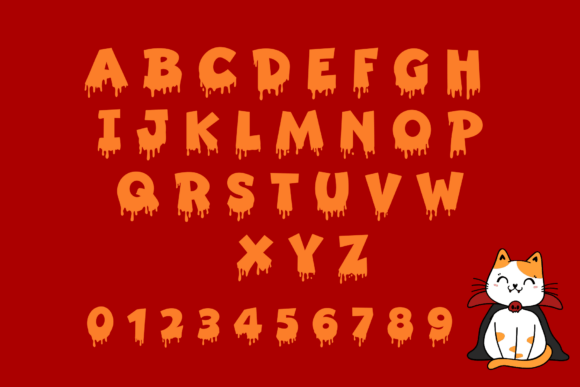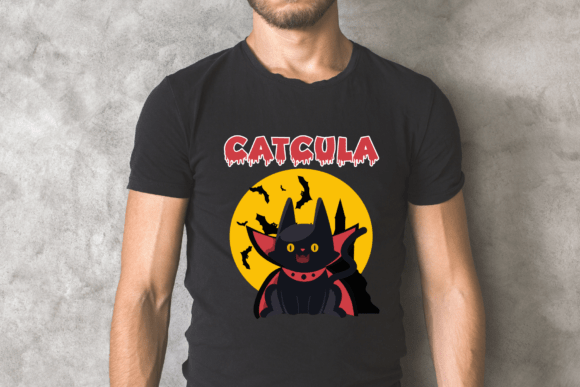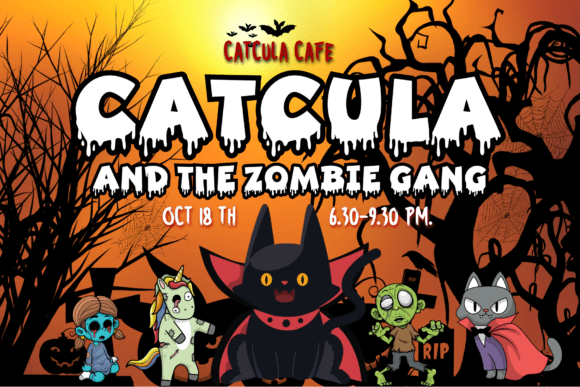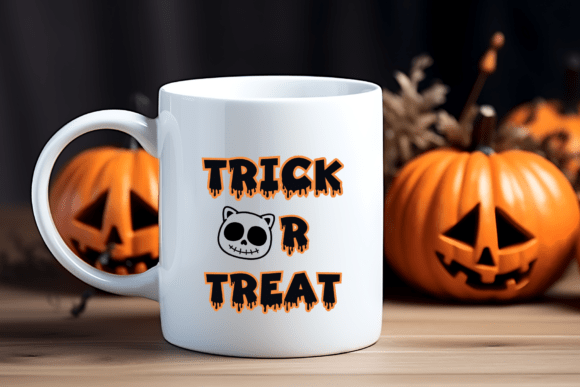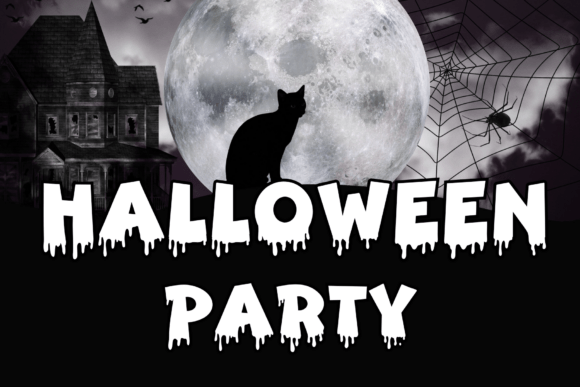
Unleash the Spooky Charm with Catcula Font: Elevate Your Halloween Designs
Are you ready to add a dash of whimsy and festive flair to your designs? Look no further than the enchanting Catcula font, a uniquely-shaped decor font that embodies the spirit of Halloween and October-themed celebrations. In this article, we’ll dive into the world of Catcula, exploring its features, uses, and the magic it brings to your creative projects.
The Birth of Catcula: A Font Like No Other
Catcula is a carefully crafted font, designed specifically to capture the essence of Halloween and the spooky-ooky charm of the season. Its whimsical shape and playful allure make it an ideal choice for designers, crafters, and artists looking to infuse their work with a touch of mystery and fun. Whether you’re creating invitations, decorations, or digital content, Catcula is the perfect gateway to unlocking your creative potential.
Features of Catcula Font
So, what makes Catcula font so special? Here are some of its standout features:
- Whimsical Design: Catcula boasts a uniquely-shaped design that exudes a festive spirit, perfect for Halloween and October-themed celebrations.
- Playful Allure: The font’s playful charm is sure to captivate your audience, adding a touch of fun and whimsy to your designs.
- Distinctive Style: Catcula’s distinctive style sets it apart from other fonts, making it an excellent choice for designers looking to create something truly unique.
- Versatility: This font is perfect for a wide range of design applications, from digital content to print materials.
Using Catcula Font in Your Designs
Catcula font is incredibly versatile, making it suitable for various design projects. Here are some ideas to get you started:
- Halloween Invitations: Create spooky-ooky invitations that set the tone for your Halloween party or event.
- Decorations and Signage: Use Catcula to create eye-catching decorations and signage that will make your Halloween display stand out.
- Digital Content: Add a touch of whimsy to your blog posts, social media graphics, and other digital content with Catcula font.
- Crafting and Scrapbooking: Incorporate Catcula into your crafting and scrapbooking projects, such as card making, journaling, and photo albums.
The Magic of Catcula: Transforming Your Designs
When you incorporate Catcula font into your designs, you can expect a transformative magic that elevates your work to a whole new level. Here are some ways Catcula can beautifully influence your end result:
- Adds a Touch of Whimsy: Catcula’s playful allure adds a dash of whimsy to your designs, making them more engaging and captivating.
- Creates a Festive Atmosphere: The font’s festive spirit helps create a spooky-ooky atmosphere, perfect for Halloween and October-themed celebrations.
- Sets the Tone: Catcula font sets the tone for your design, immediately conveying the theme and mood of your project.
- Enhances Creativity: By incorporating Catcula into your designs, you’ll unlock a world of creative possibilities, allowing you to experiment with new ideas and techniques.
In conclusion, Catcula font is a unique and captivating addition to any design project, offering a playful allure and festive spirit that’s perfect for Halloween and October-themed celebrations. With its whimsical design, distinctive style, and versatility, Catcula is sure to become a favorite among designers, crafters, and artists. So, dare to embellish your cherished designs with Catcula and marvel at the transformative magic it bestows, beautifully influencing the end result.